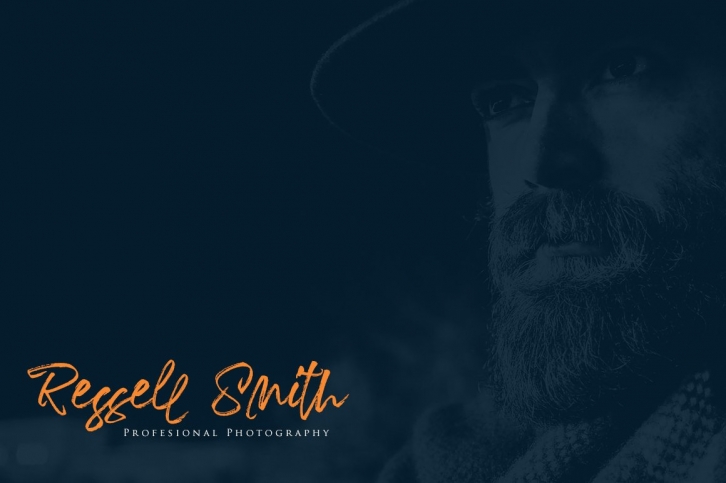
Banteng script is a gorgeous font that was realeased on April 19, 2021. The font can be used in many style contexts and design environments. Perfect for invitations, magazines, websites, logos, and more! It was designed by dotHK and the file size is 3.5 MB. Thanks for checking out this font!